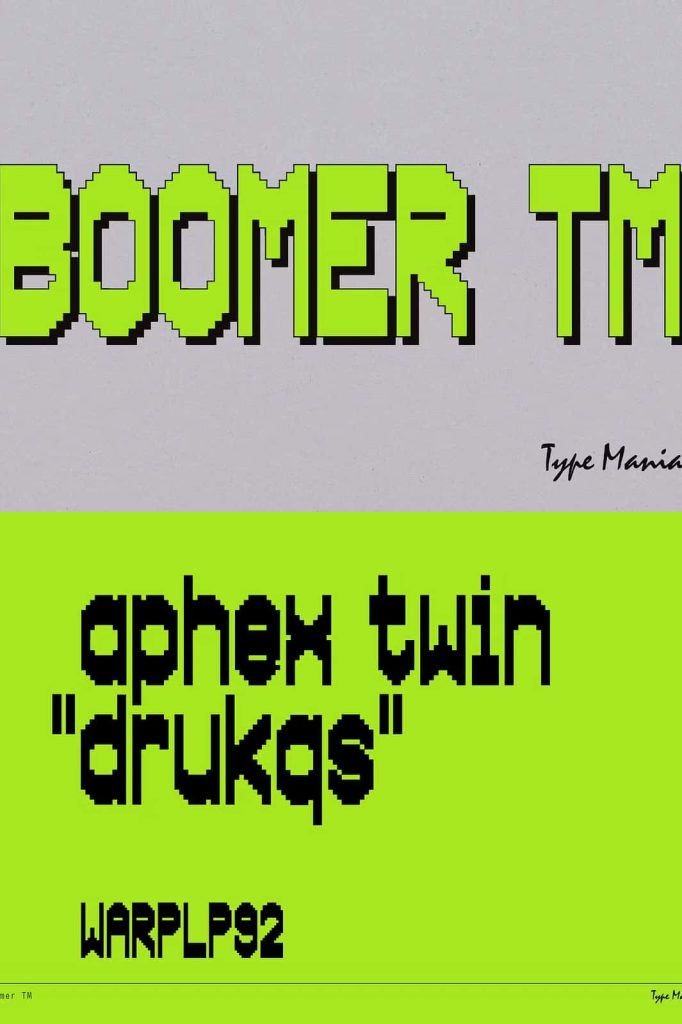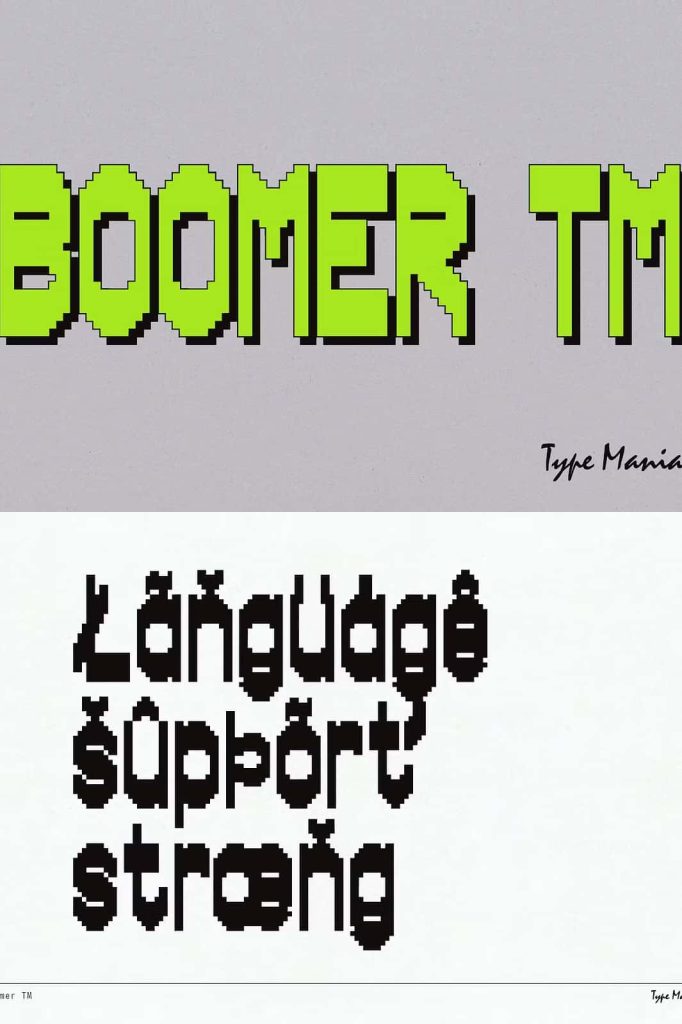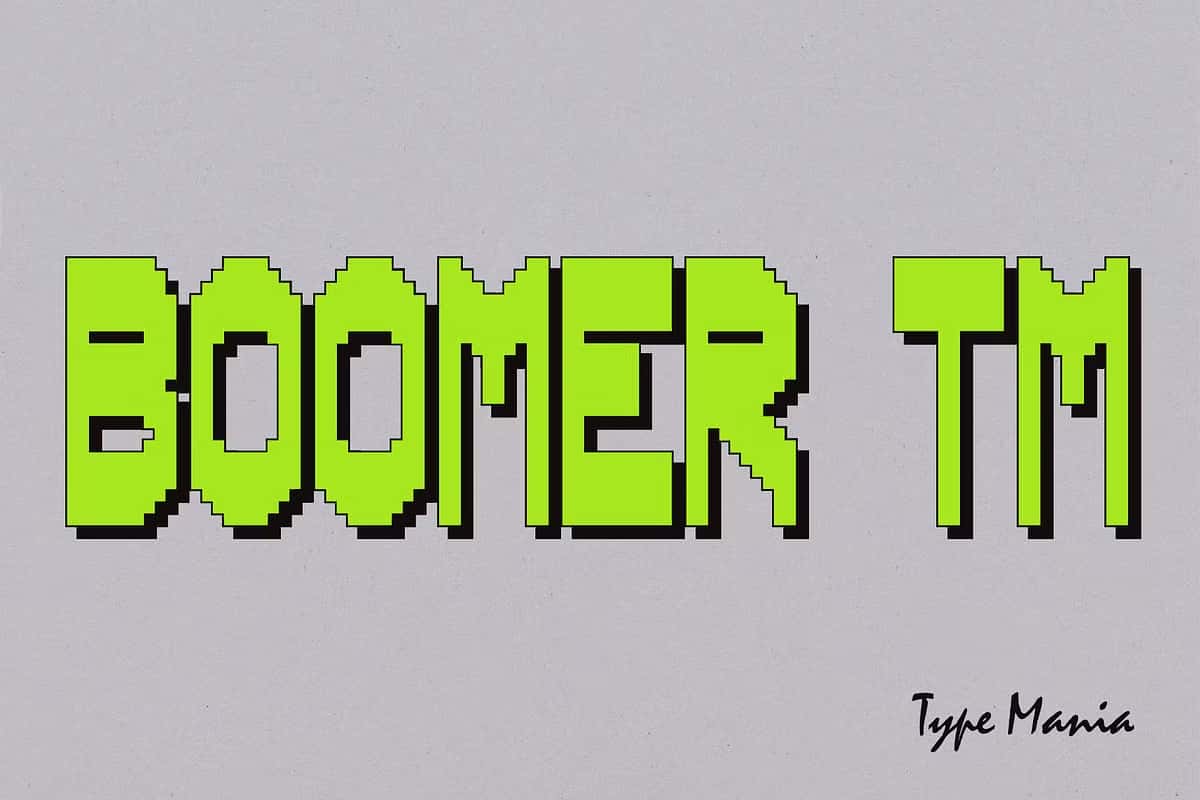
Boomer TM Pixel Font: Funky, Flexible Typography for Modern Digital Design
Boomer TM is a bold and expressive pixel font that proves pixel typography can be just as funky, creative, and versatile as any modern typeface. Designed to challenge the traditional limitations of pixel fonts, Boomer TM brings personality, rhythm, and visual excitement into grid-based lettering. It delivers a strong retro foundation while embracing contemporary design freedom.
This pixel font is built for designers, developers, and creatives who want to explore playful typography without sacrificing control or adaptability. Boomer TM invites experimentation, encouraging you to shape and refine the font to suit your specific creative vision.
Redefining Pixel Fonts with Funky Character
Pixel fonts are often associated with rigid forms and strict limitations, but Boomer TM takes a different approach. Its design embraces bold proportions, distinctive shapes, and a funky attitude that breaks away from predictable pixel patterns. Each character feels energetic and expressive, allowing your typography to stand out while still honoring the pixel grid.
The font’s unique construction gives designers more room to communicate personality and emotion. Whether you aim for playful, experimental, or nostalgic visuals, Boomer TM provides a flexible foundation that supports creative storytelling through typography.
Designed for Customization and Creative Freedom
One of the strongest features of Boomer TM is its adaptability. This pixel font is designed to be adjusted, modified, and customized to better fit your individual needs. Designers can tweak spacing, proportions, or overall structure to align the font with specific branding or interface requirements.
This flexibility makes Boomer TM a valuable tool for both experimental projects and professional workflows. Instead of forcing your design to conform to the font, Boomer TM allows the font to evolve with your creative direction.
Perfect for Games and Interactive Media
Boomer TM works exceptionally well in game design and interactive media. Its pixel-based structure ensures clear readability at small sizes, while its funky style keeps visuals engaging and dynamic. Use it for game interfaces, menus, scoreboards, dialogue boxes, and in-game titles.
Indie game developers and digital creators can rely on Boomer TM to deliver strong visual identity while maintaining technical consistency across screens and resolutions.
Ideal for Digital Interfaces and Retro Branding
Beyond gaming, Boomer TM fits seamlessly into digital interfaces, websites, mobile apps, and experimental UI projects. Its pixel construction makes it suitable for tech-inspired designs, retro branding, and modern digital art. When used in headers, buttons, or navigation elements, the font adds character without overwhelming the user experience.
Boomer TM also works well for posters, album artwork, social media graphics, and merchandise that draw inspiration from retro digital culture.
Bring Playful Energy to Modern Typography
Boomer TM is designed to bring playful energy into modern typography. It transforms simple text into a visual statement that feels lively, bold, and expressive. By blending pixel precision with funky design choices, this font allows creatives to push boundaries while maintaining structure and clarity.
The font performs well across both print and digital formats, making it suitable for a wide range of applications. Whether you are designing experimental art pieces or functional digital products, Boomer TM adds a distinctive edge to your work.
Why Choose the Boomer TM Pixel Font
Boomer TM stands out as a pixel font that encourages creativity and customization. It empowers designers to move beyond traditional pixel constraints and explore new typographic possibilities. The combination of funky character, adaptability, and technical reliability makes it a strong choice for modern creative projects.
If you are looking for a pixel font that feels bold, flexible, and fun, Boomer TM is an excellent choice. It gives you the freedom to customize, experiment, and create typography that truly reflects your vision while maintaining the charm of pixel-based design.